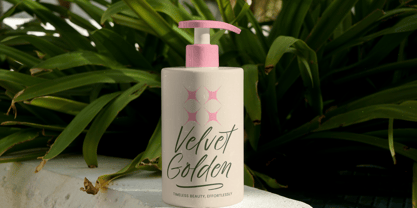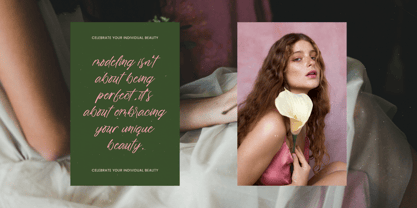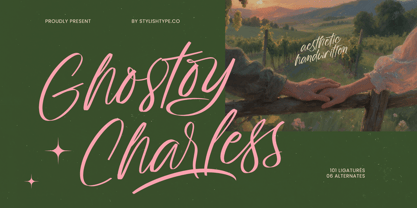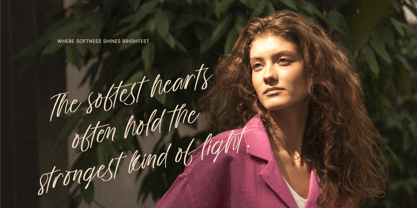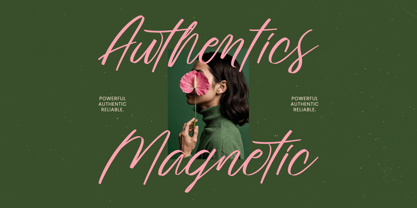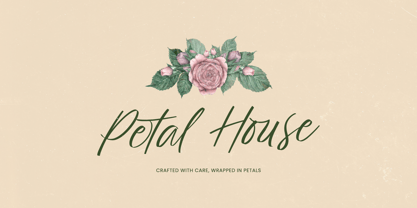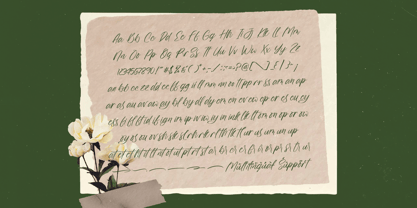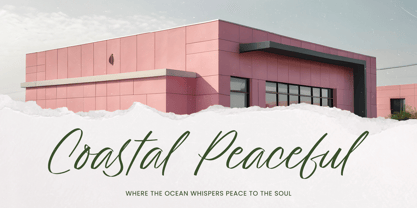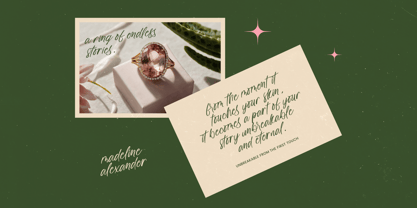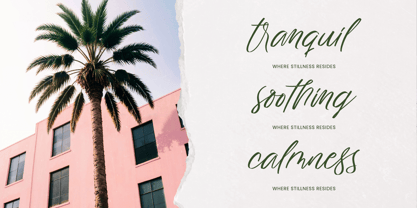
Ghostoy Charless
by Stylishtype Studio
The Ghostoy Charless Font Family was designed by Heru Utama Putra and published by Stylishtype Studio. Ghostoy Charless contains 2 styles and family package options. More about this family
Ghostoy Charless – Aesthetic Handwritten is a masterfully crafted sophisticated script that captures the essence of personalized artistry. Designed with an organic flow and graceful strokes, this font brings a human touch to digital canvases, making it an essential tool for designers seeking to convey intimacy and visual storytelling. Unlock unparalleled creative flexibility with an expansive suite of features including 101 custom ligatures and unique alternates. These OpenType features ensure seamless transitions between characters, mimicking the natural rhythm of high-end calligraphy. With its extensive multilingual support, Ghostoy Charless – Aesthetic Handwritten adapts seamlessly across global markets, making it incredibly versatile for international projects and ensuring your brand message remains consistent everywhere.